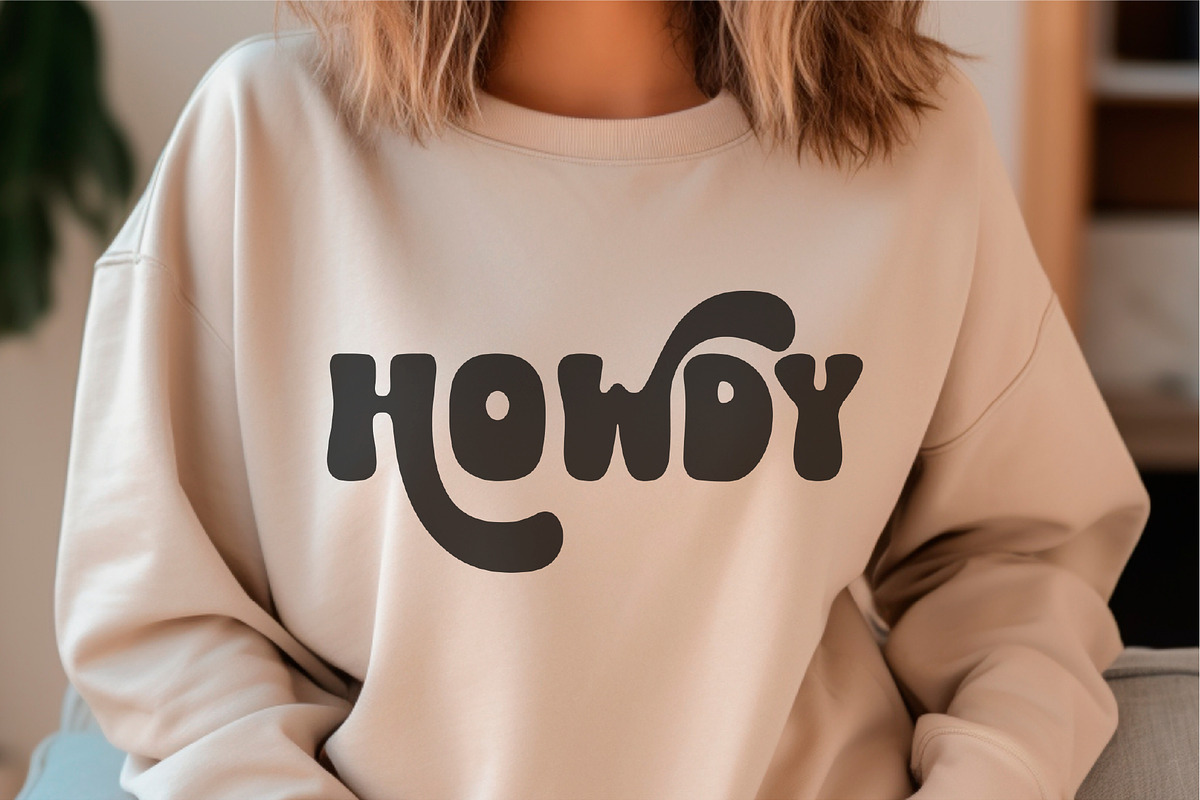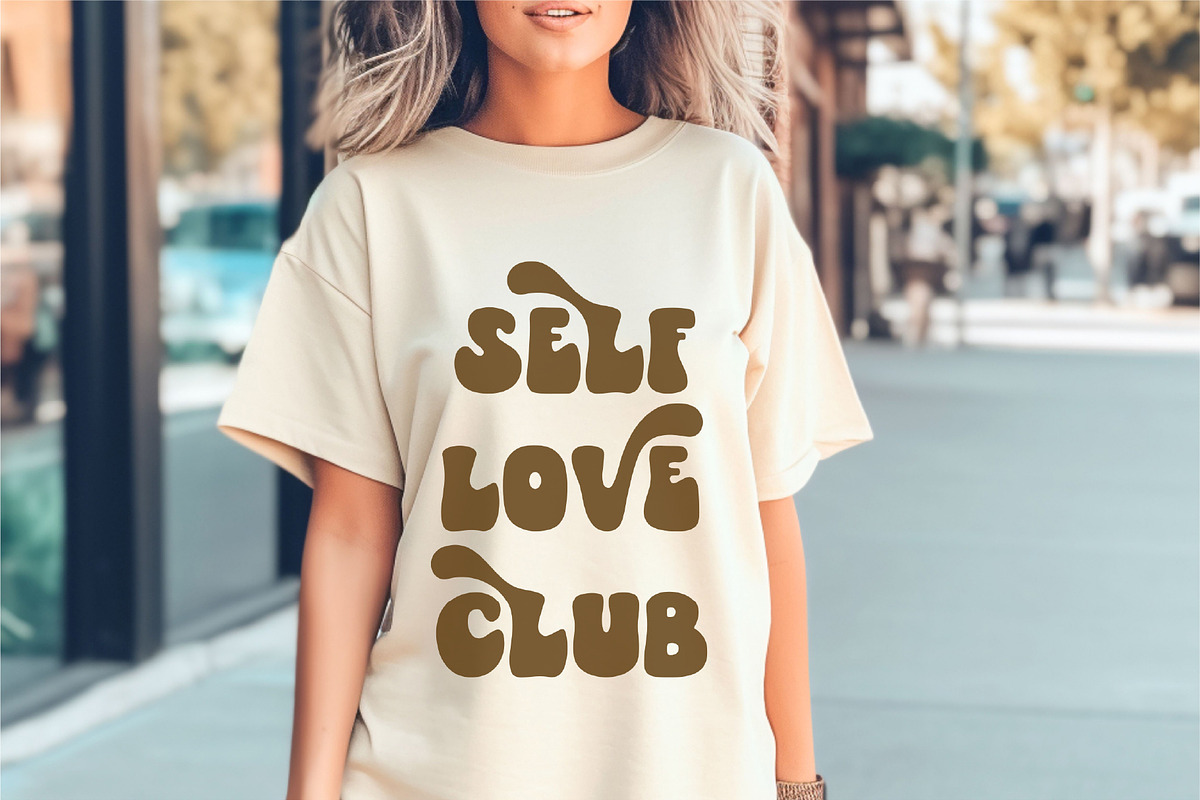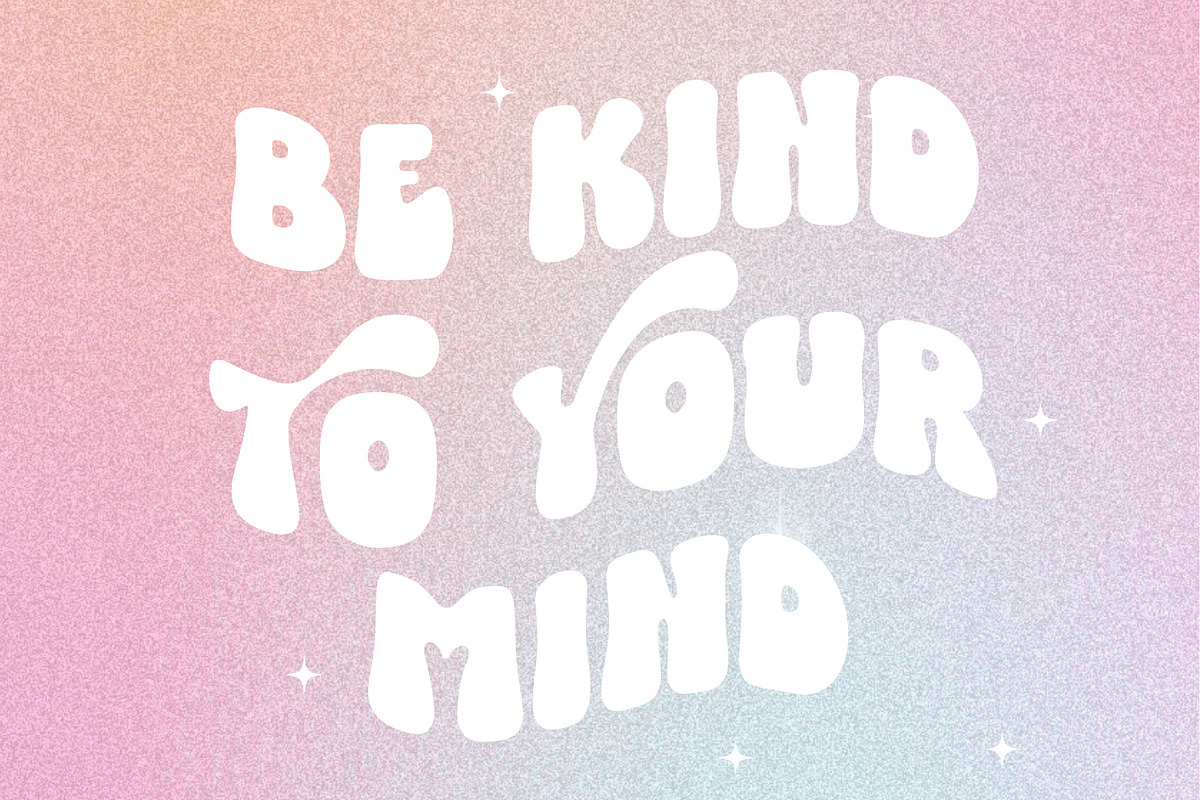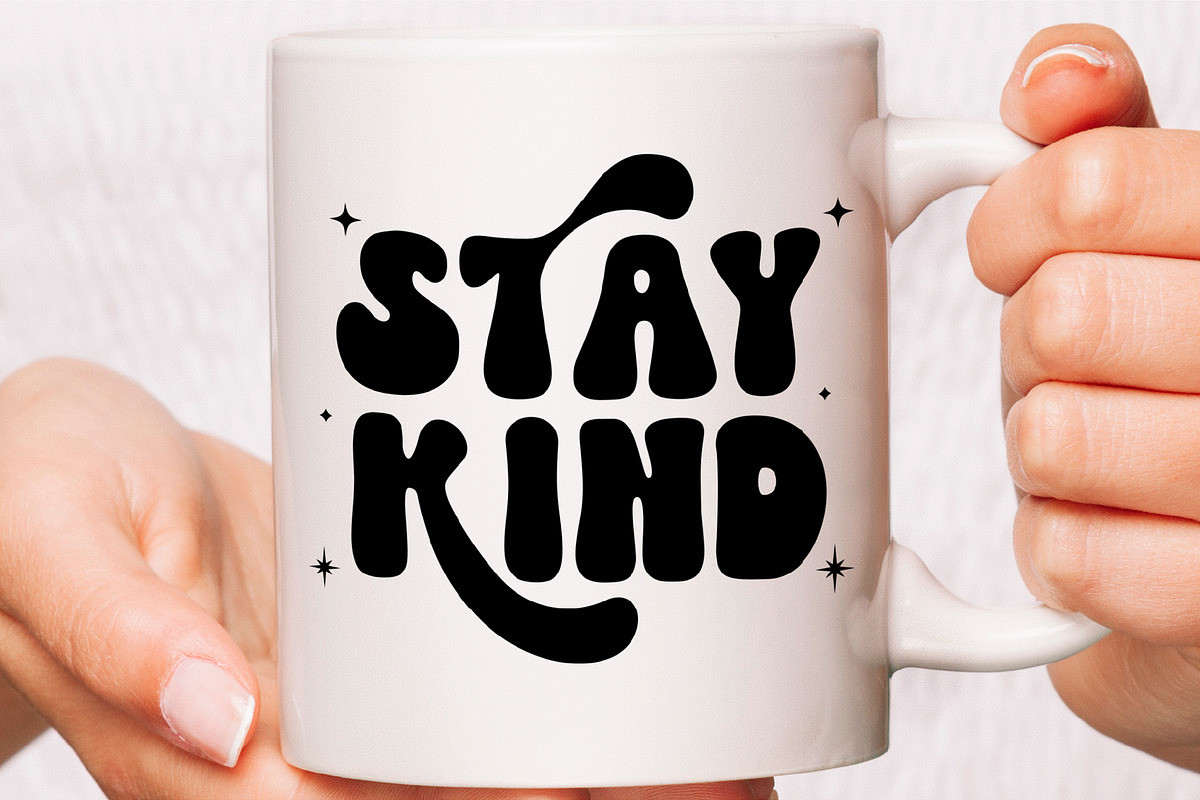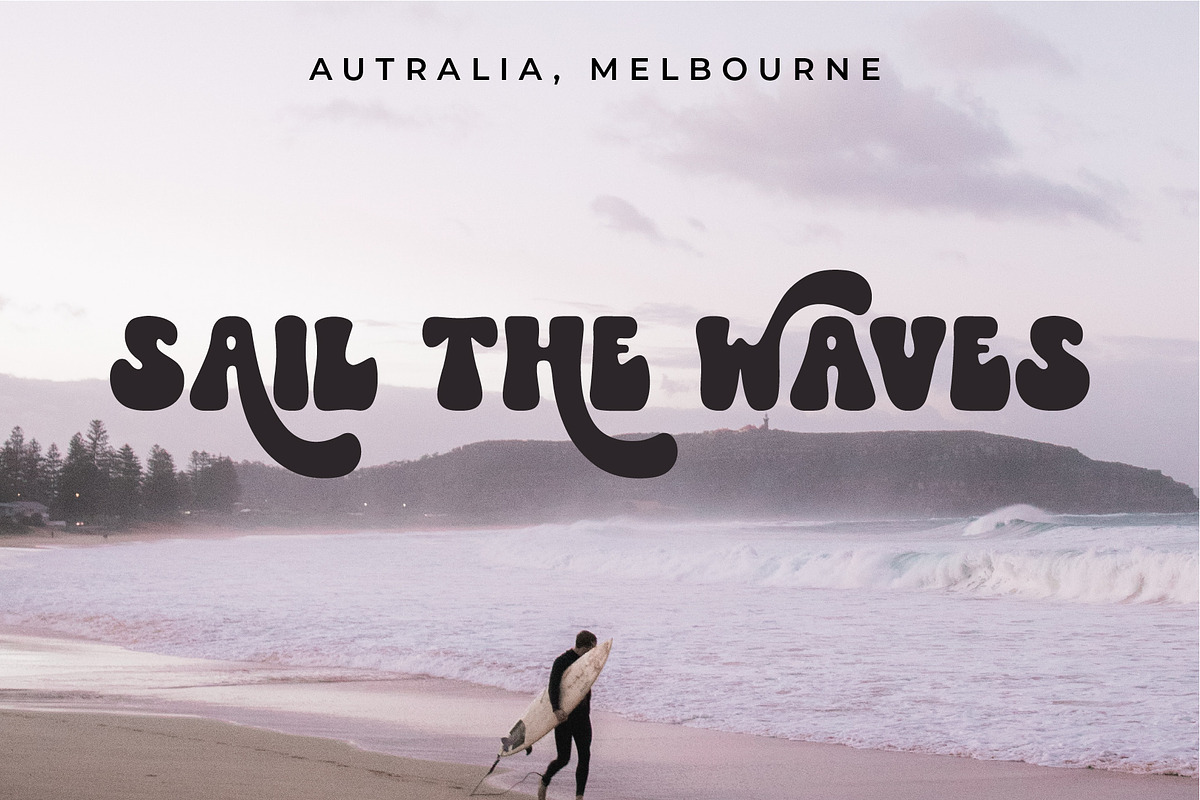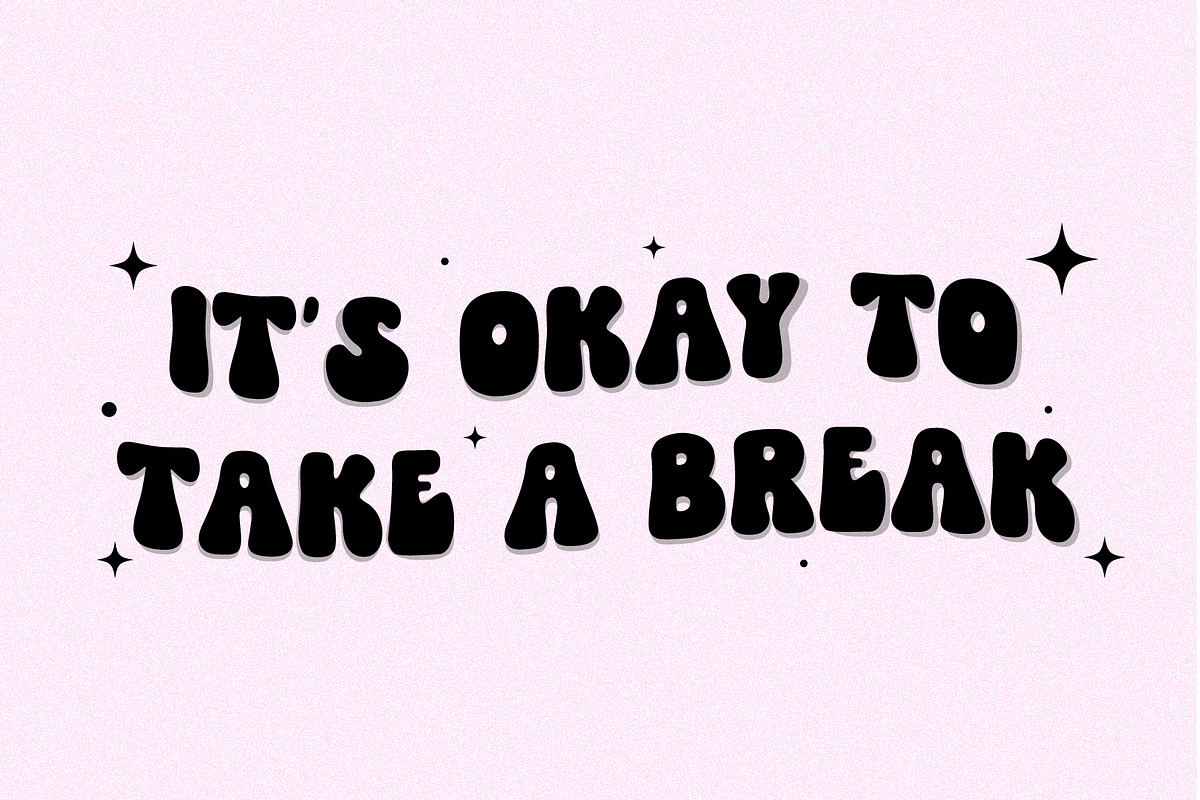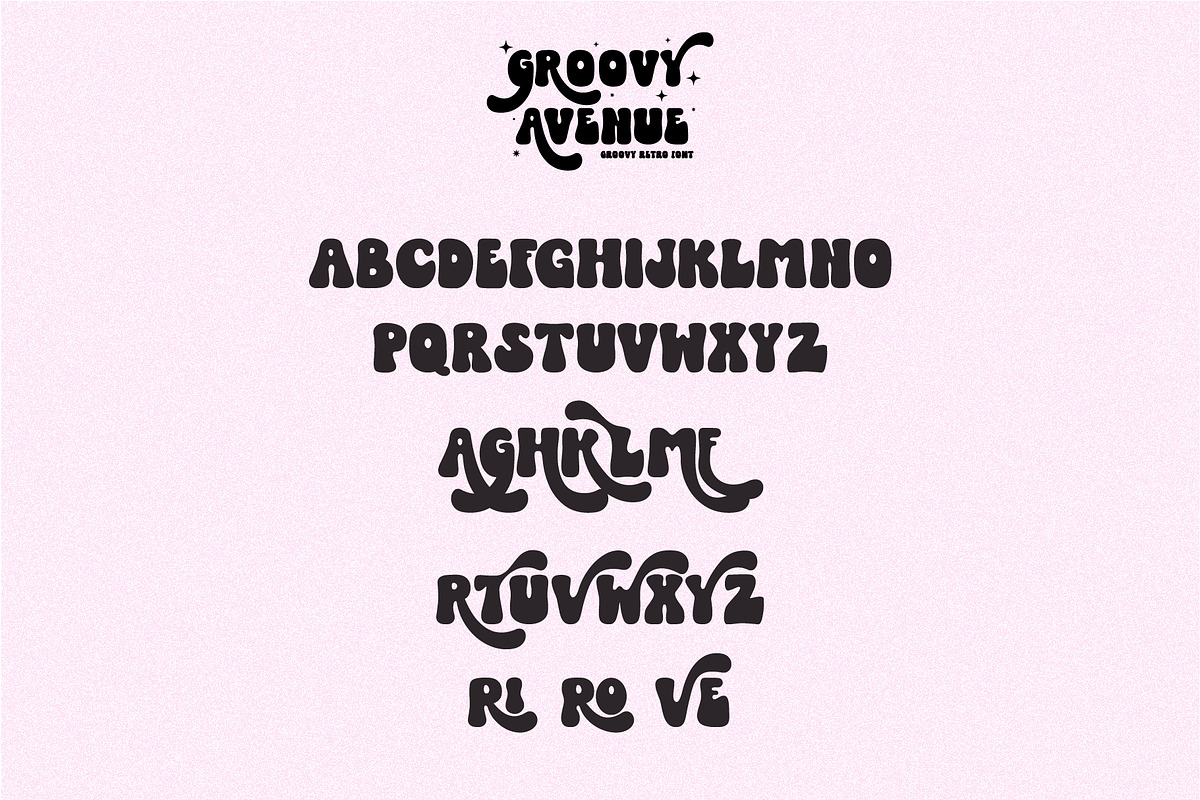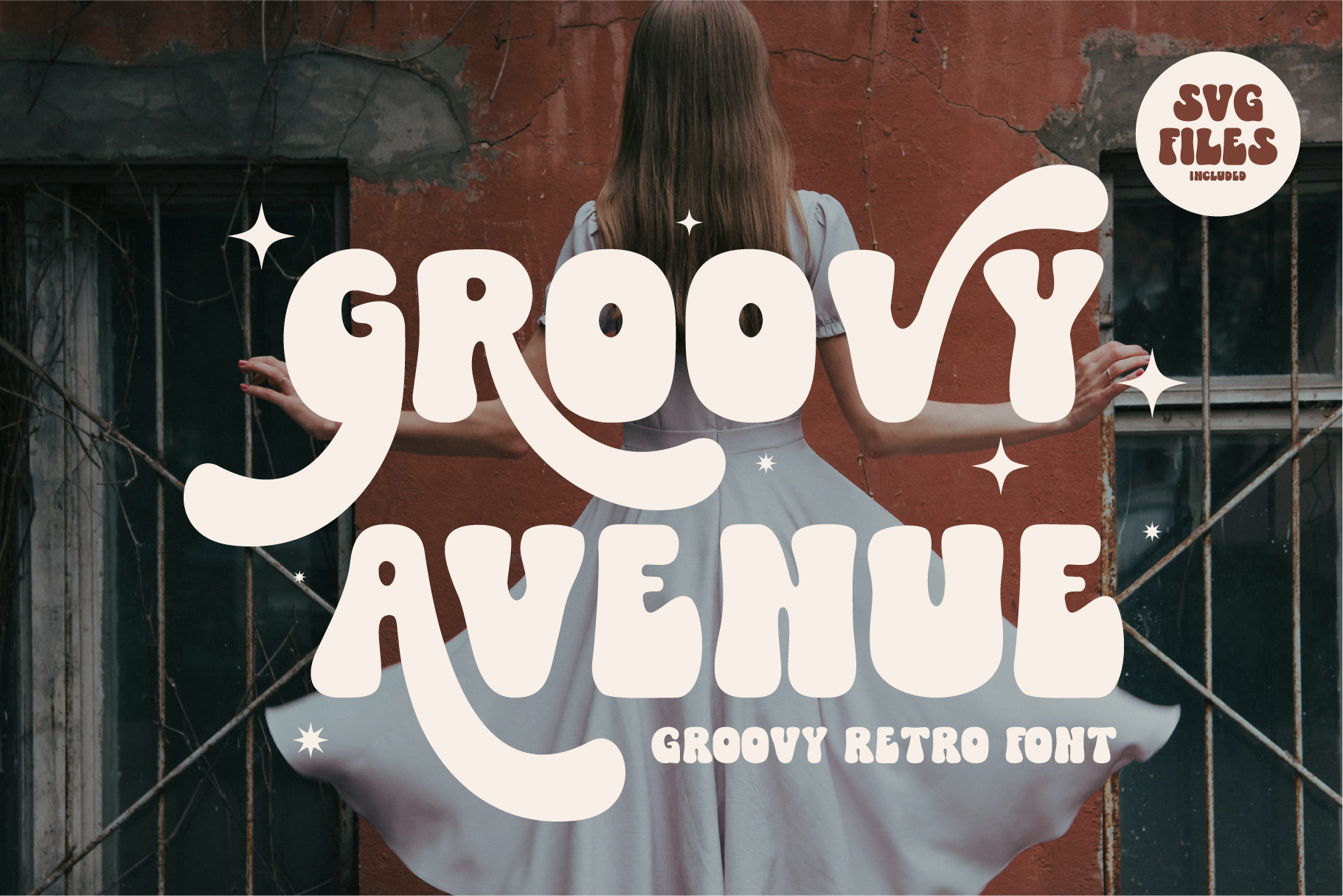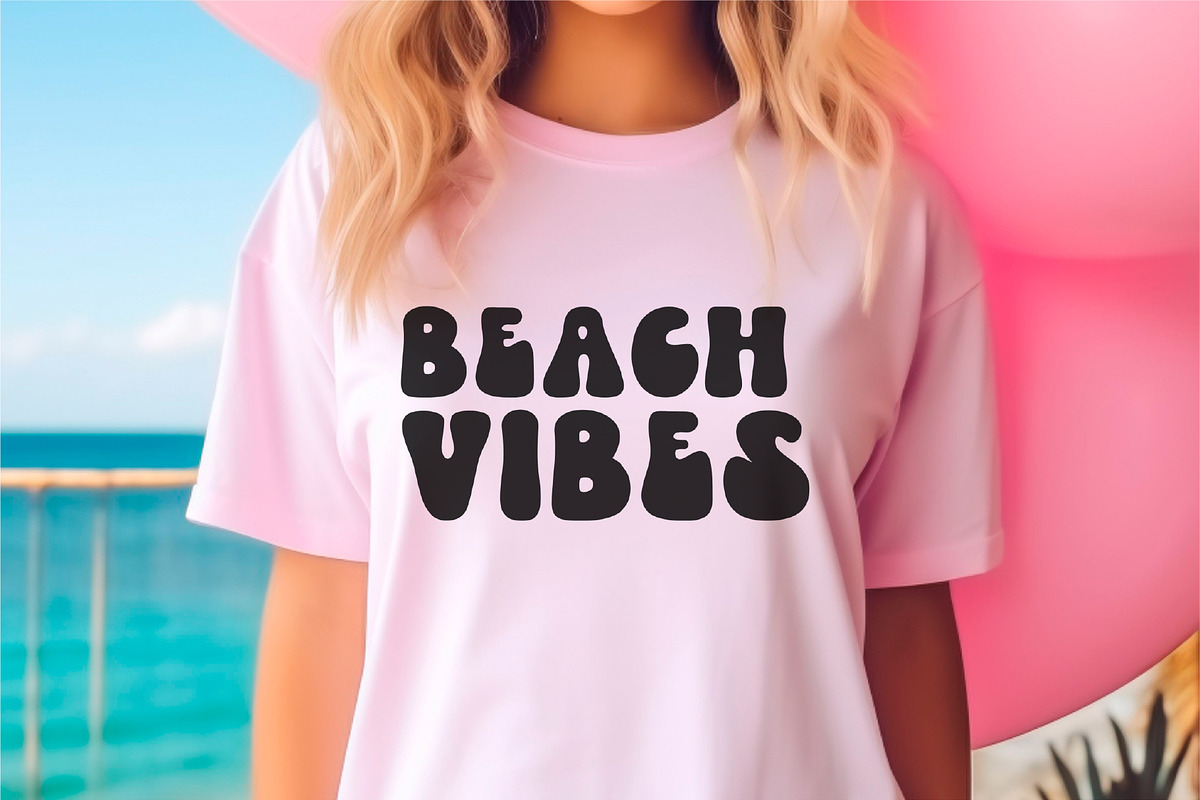
Groovy Avenue — A Groovy Retro Font
Introducing the newest addition to your font collection — Groovy Avenue! This font is the perfect combination of vintage and modern, with bold and chunky letters that are sure to make a statement.
The font is inspired by the 70s, 80s and 90s era, with a touch of modern typography. Each letter is carefully crafted with attention to detail, giving it a unique and eye-catching look. The font is perfect for posters, flyers, logos, and any design that needs a retro touch.